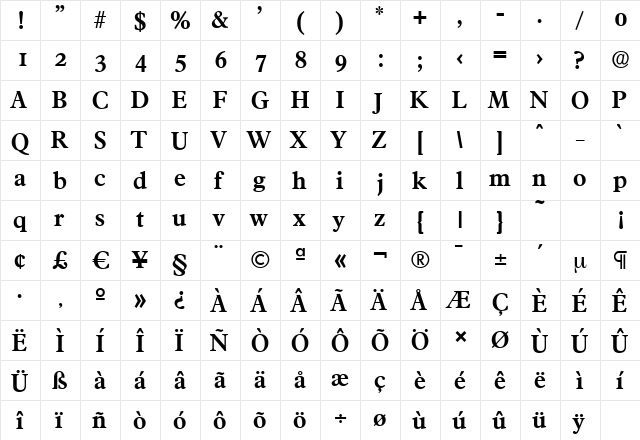
FranciscoSerial Bold
Design Context for FranciscoSerial Typeface
FranciscoSerial offers clean, dependable letterforms without strong stylistic allegiance, making it a practical choice for designers who need flexibility. Its bold stroke weight gives it real presence on the page.
Pro Tip: Use FranciscoSerial in both headline and body roles to test its range before committing to a single application.